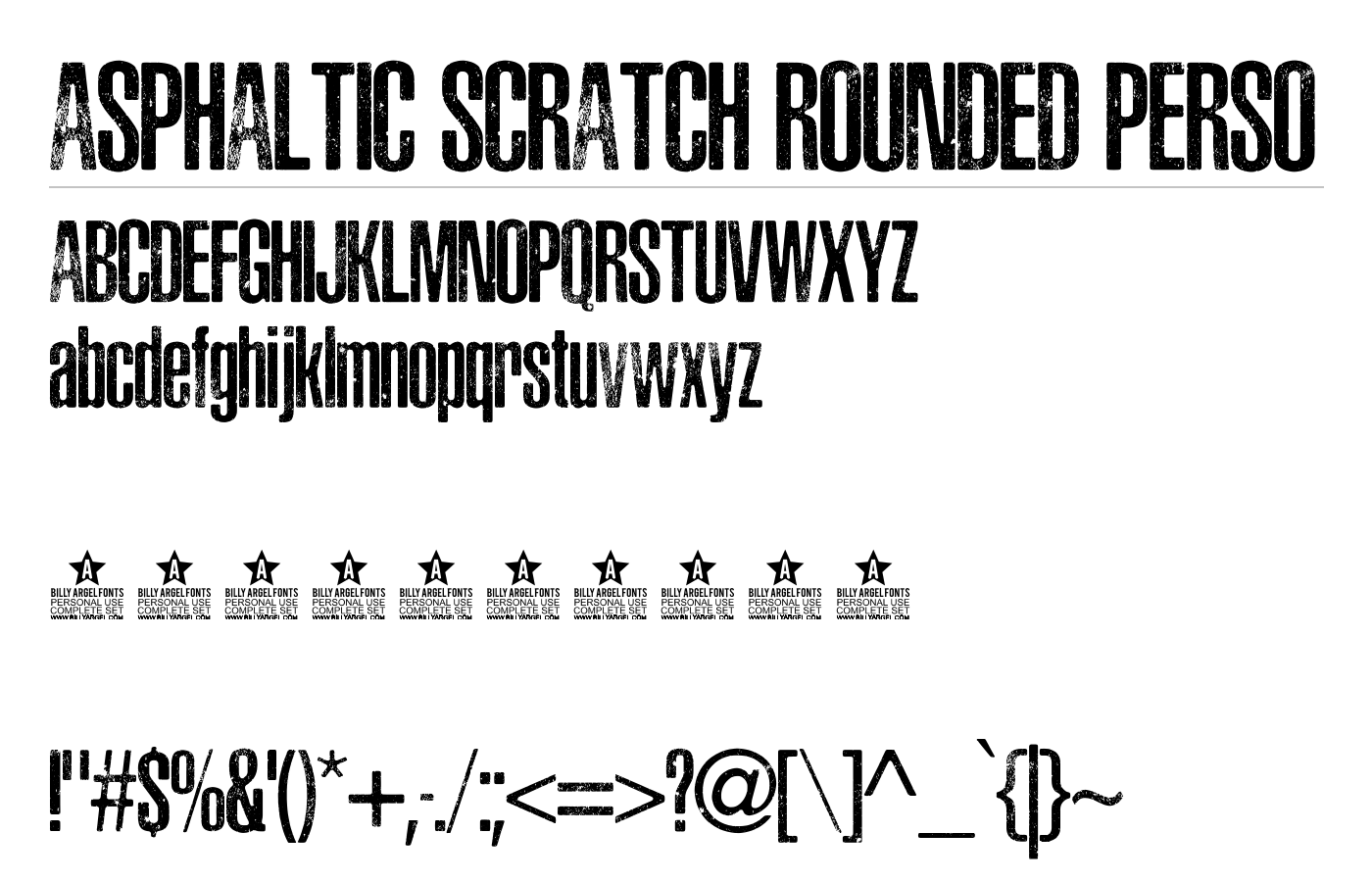
Asphaltic Scratch Rounded Perso is a tall, narrow sans serif font with a distressed, textured finish that gives it a rugged, industrial feel. Its condensed shapes combined with rounded edges and rough, scratched details make it ideal for bold, eye-catching headlines and designs that need a vintage or street-style edge. This font works wonderfully for posters, urban branding, and creative projects seeking a gritty yet approachable aesthetic.
ASPHALTIC SCRATCH ROUNDED PERSO Font
About ASPHALTIC SCRATCH ROUNDED PERSO Font
| Font family | ASPHALTIC SCRATCH ROUNDED PERSO Font |
| Designer | BILLY ARGEL |
| Font subfamily | Bold, Condensed |